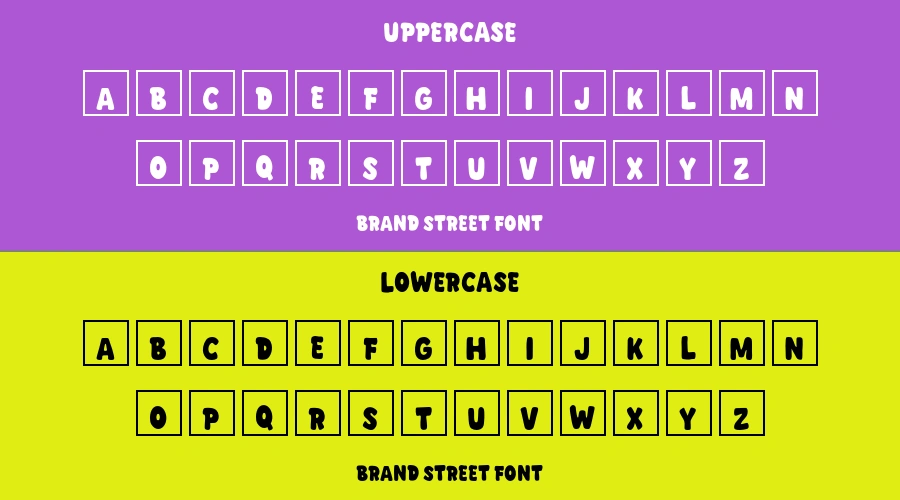
About Brand Street Font
Brand Street Font represents a sophisticated approach to type design, balancing width contrast with brand presence. Perfect for digital interfaces, this font family showcases impressive precision and brand alignment throughout its character set. Designers appreciate its versatility and reliability.
Designers will appreciate nuanced touches including rounded corners and numerator/denominator, adding sophistication to any project. These features become apparent in featured quotes, where consistency matters most. The careful treatment of joint detail and modern touches ensures optimal performance.